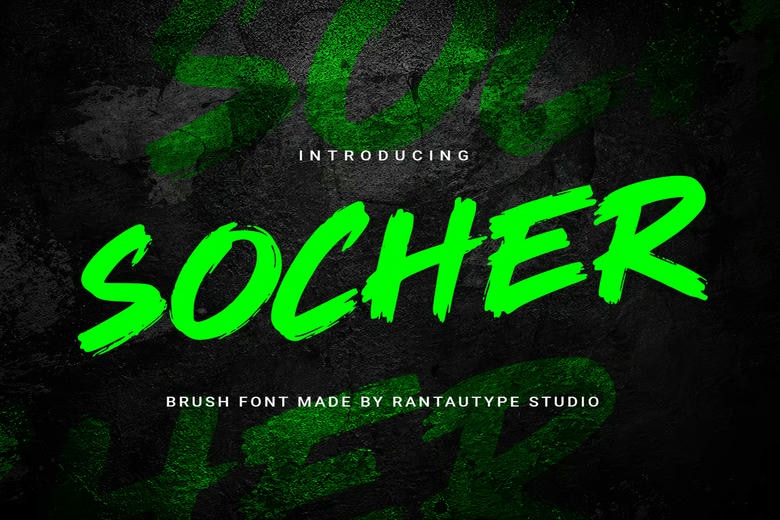
Socher Font
Socher is a brush font that brings an energetic, bold personality inspired by marker strokes, urban graffiti, and street culture. It is a great choice for creative projects like logos, titles, covers, branding, invitations, magazines, social media posts, ads, printed quotes, packaging, labels, watermarks, special events, and any design that needs a street-inspired look.
Socher Brush Script Font